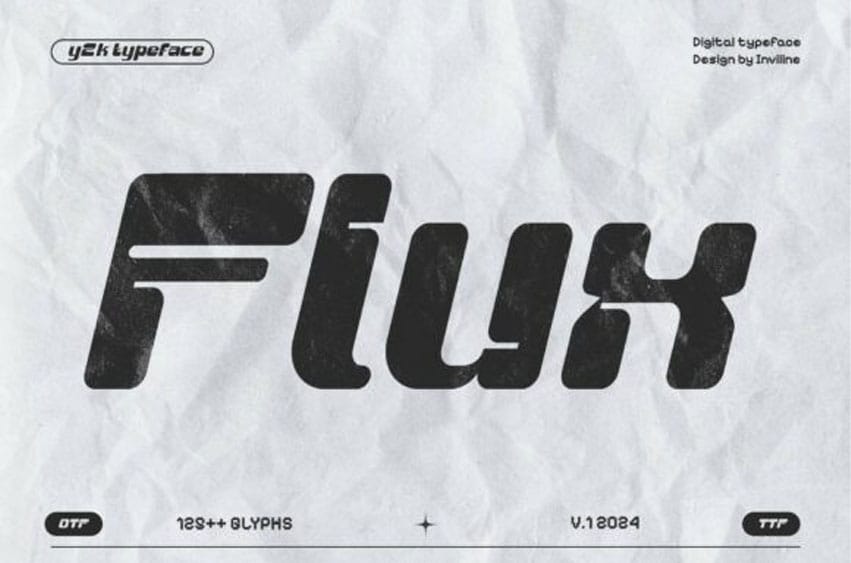
Flux Regular Font is a bold Y2K-inspired digital typeface designed to bring nostalgic tech vibes into modern design.
With rounded corners, chunky strokes, and a slightly distressed texture, Flux is ideal for futuristic posters, cyberpunk branding, retro tech visuals, and creative headlines. Comes with 120+ glyphs in both OTF and TTF formats.